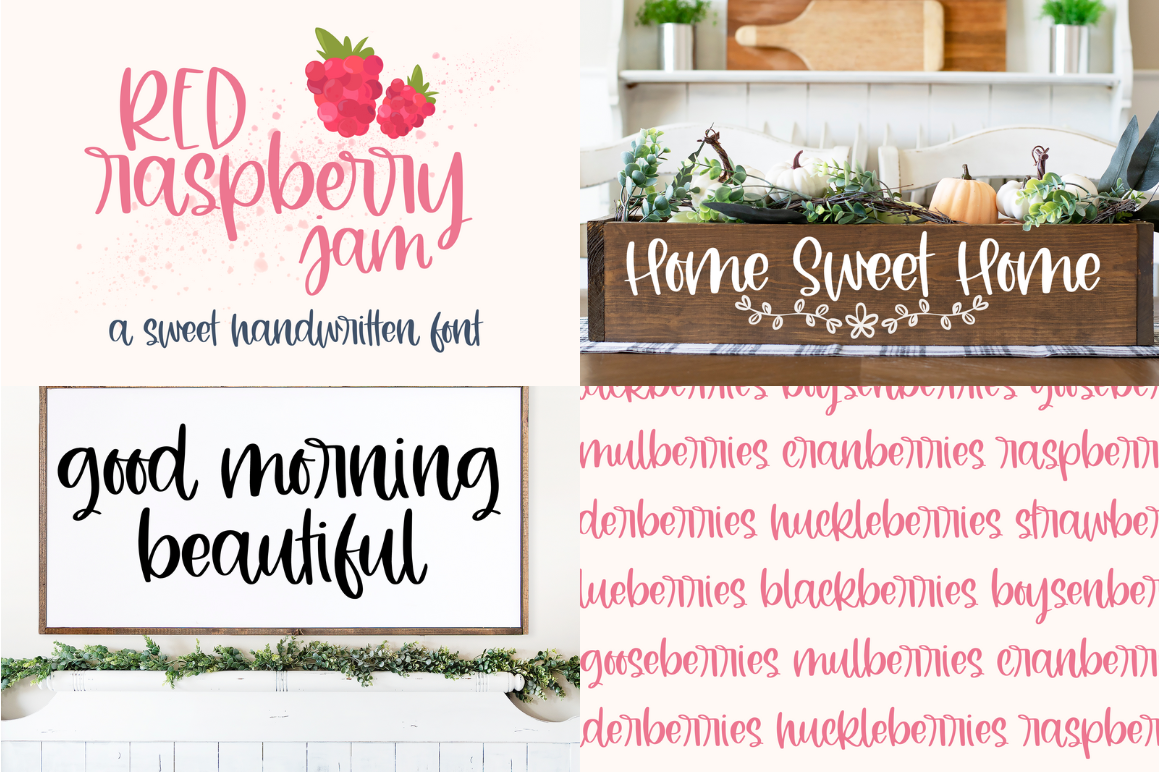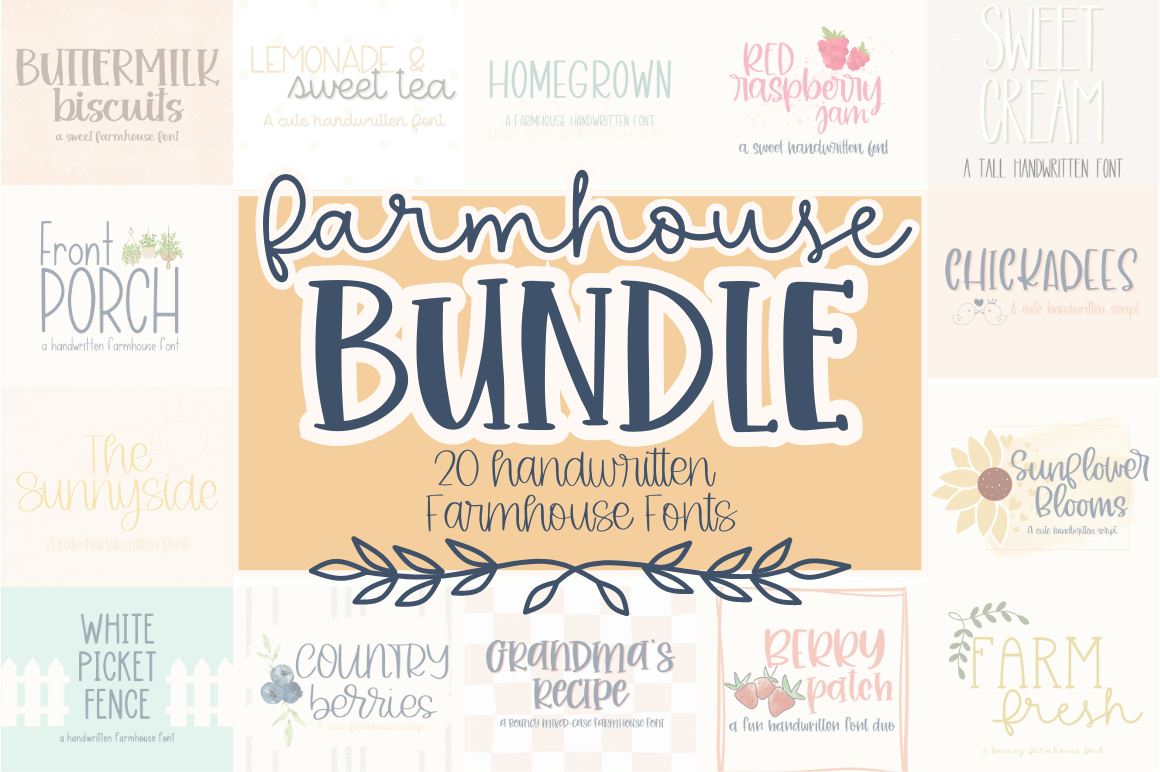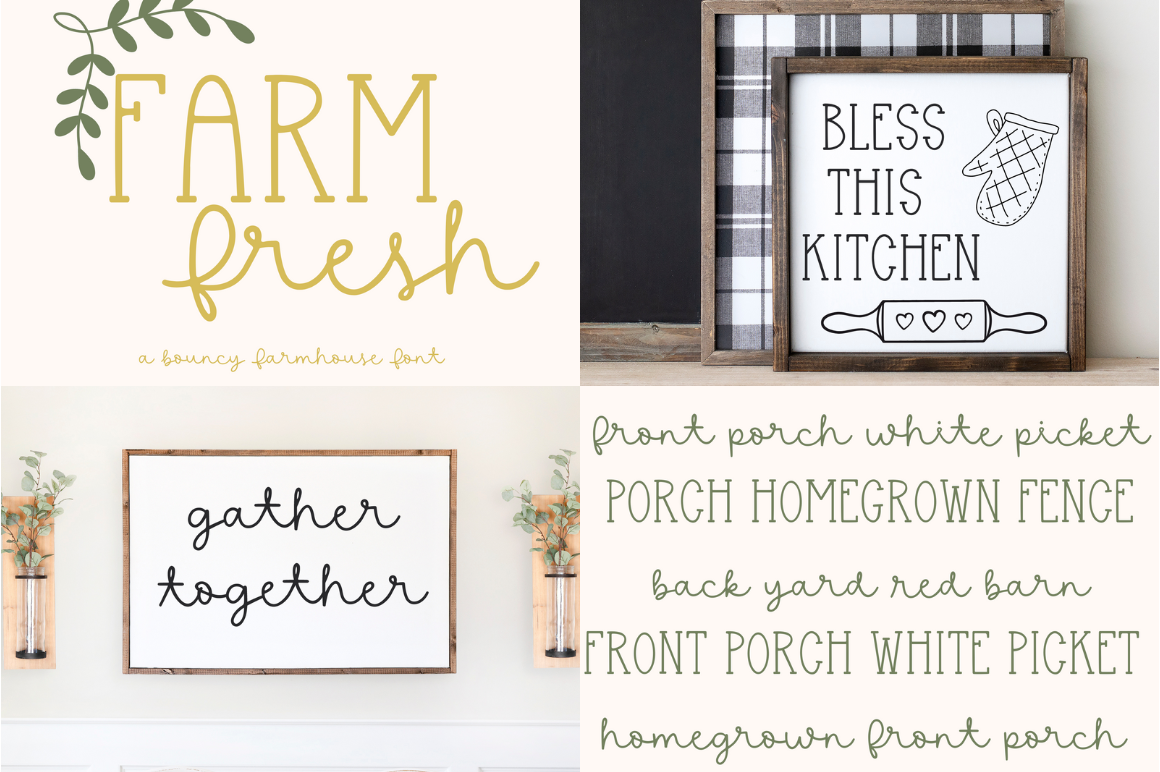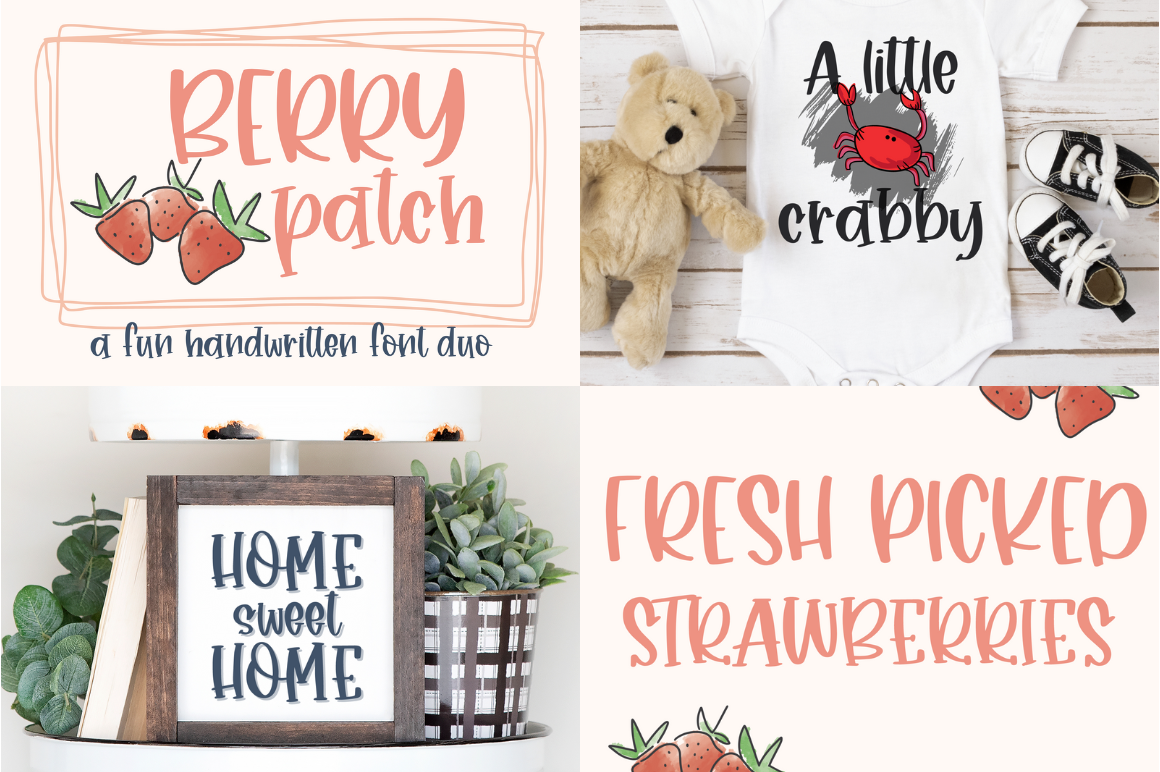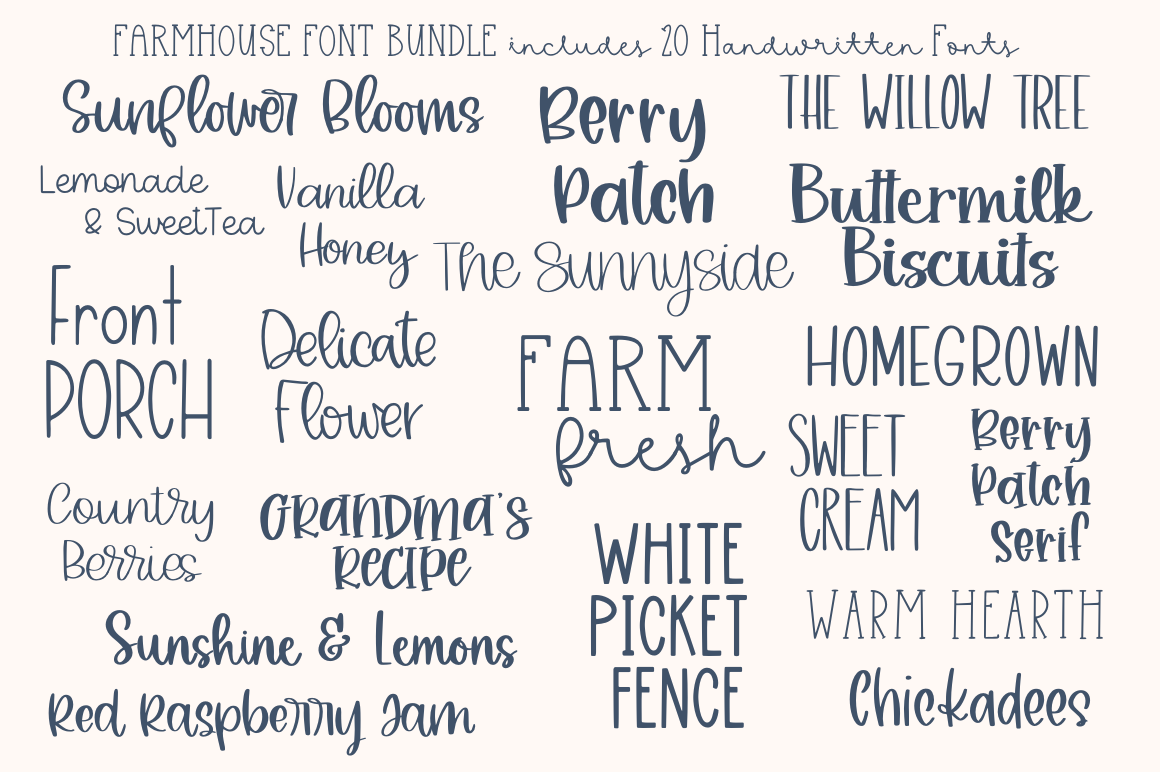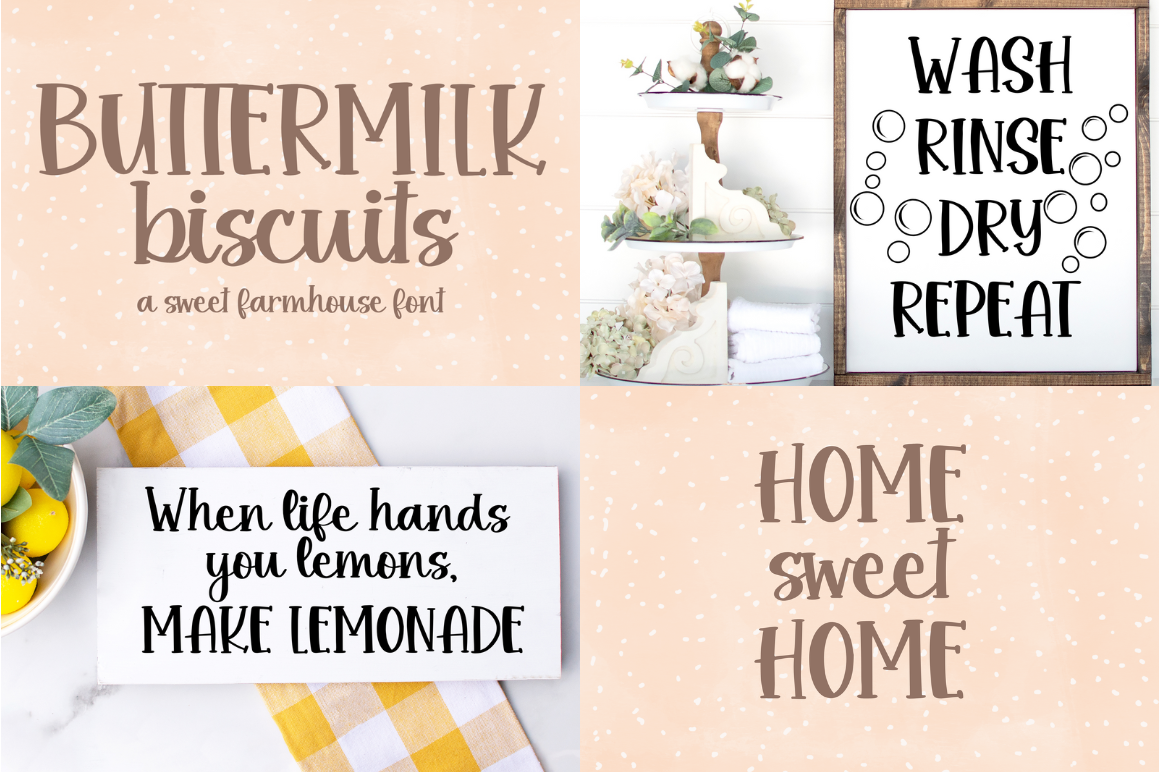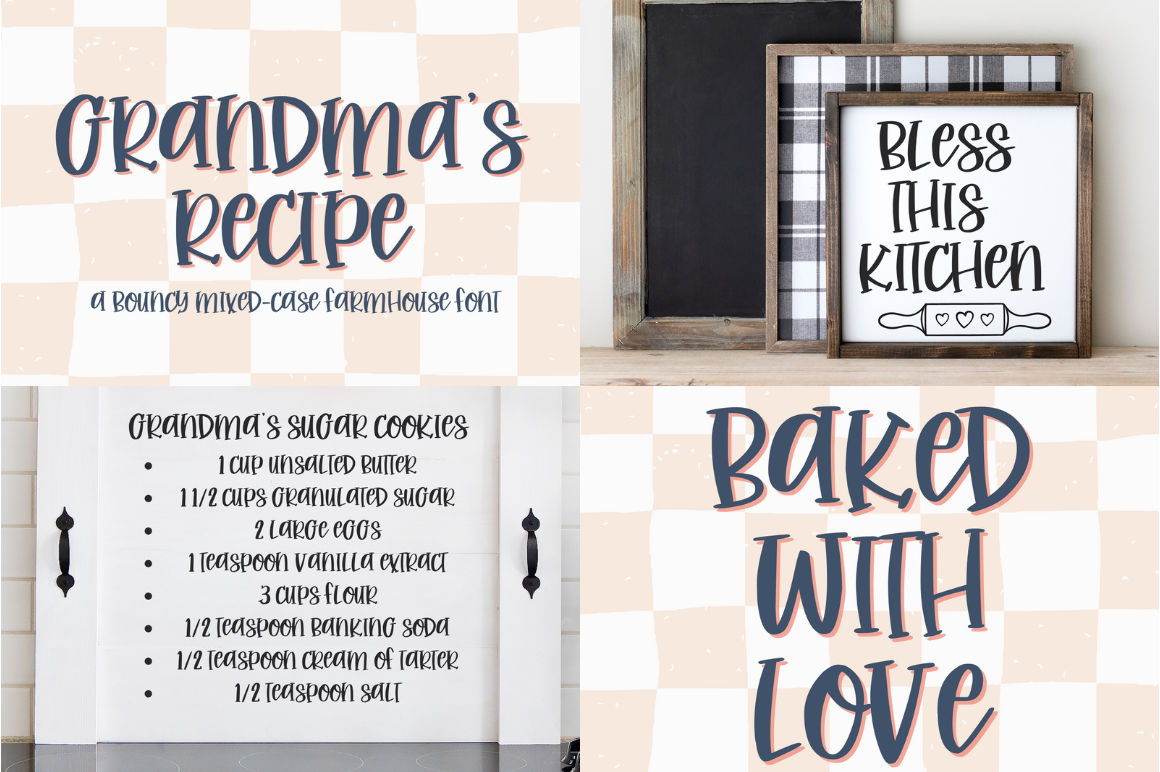
Farmhouse Font Bundle
Introducing our irresistible Farmhouse Handwritten Font Bundle, a delightful collection of 20 handwritten fonts that is a must-have for all font enthusiasts! This comprehensive bundle includes an array of stunning cursive and script fonts, specifically designed for various creative projects, including fonts for Cricut and other cutting machines. Whether you're crafting personalized items or designing digital artwork, our font bundle offers the perfect blend of style and versatility. Each font within this meticulously curated collection exudes charm and legibility, making it easy to create captivating designs. Elevate your creative endeavors today with our exceptional Farmhouse Handwritten Font Bundle and unlock endless possibilities for your projects!   This product includes both OTF, TTF, and WOFF files for each font.   Fonts included are: _______________________________________________________________________________ Buttermilk Biscuits Berry Patch  Berry Patch Serif Chickadees Country Berries Delicate Flower Farm Fresh Front Porch Grandma's Recipe Homegrown Lemonade & Sweet Tea Red Raspberry Jam Sunflower Blooms Sunshine & Lemons Sweet Cream The Sunnyside The Willow Tree Vanilla Honey Warm Hearth White Picket Fence